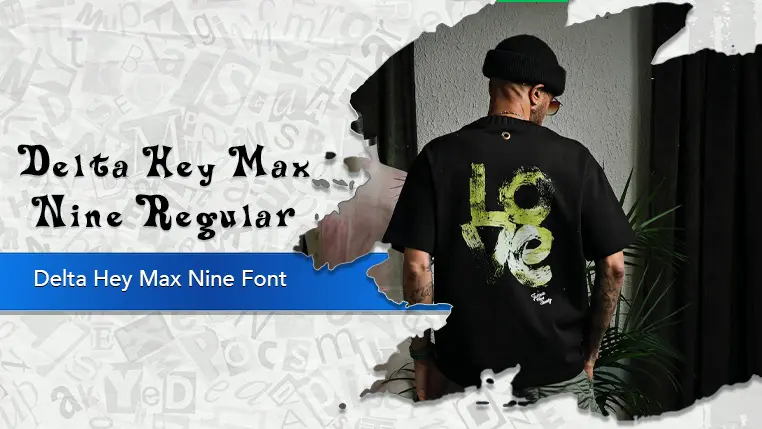
The Delta Hey Max Nine font family may be ideal for you if you enjoy working on an artistic design project. The lively, expressive look of this typeface, which was created by Typodermic Fonts, makes it ideal for Social Media Graphics, T-shirt and Apparel Design. Excellent for logos, packaging, and marketing materials for toys, games, children's books, or anything targeting a younger audience. Ideal for party invitations (especially birthdays), whimsical event posters, or announcements where a lighthearted tone is desired. Stands out on posters for festivals, concerts, or any event aiming for a fun and engaging atmosphere. and other light-hearted visual projects.
Regular are the one primary font styles of the Delta Hey Max Nine font family. You may build dynamic, visually appealing text layouts with the distinct flair that each style offers. With crisp, readable lines and a relaxed tone.